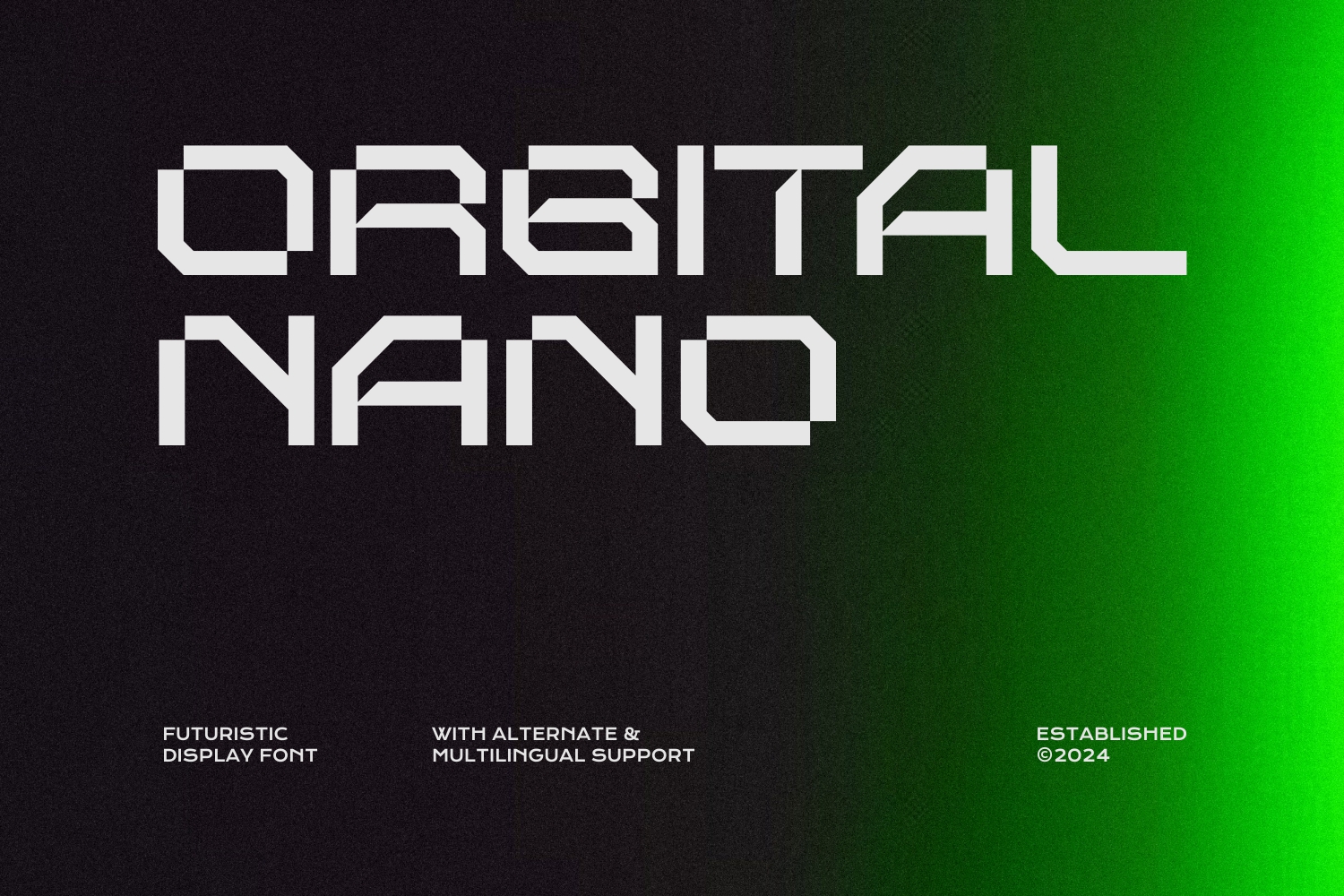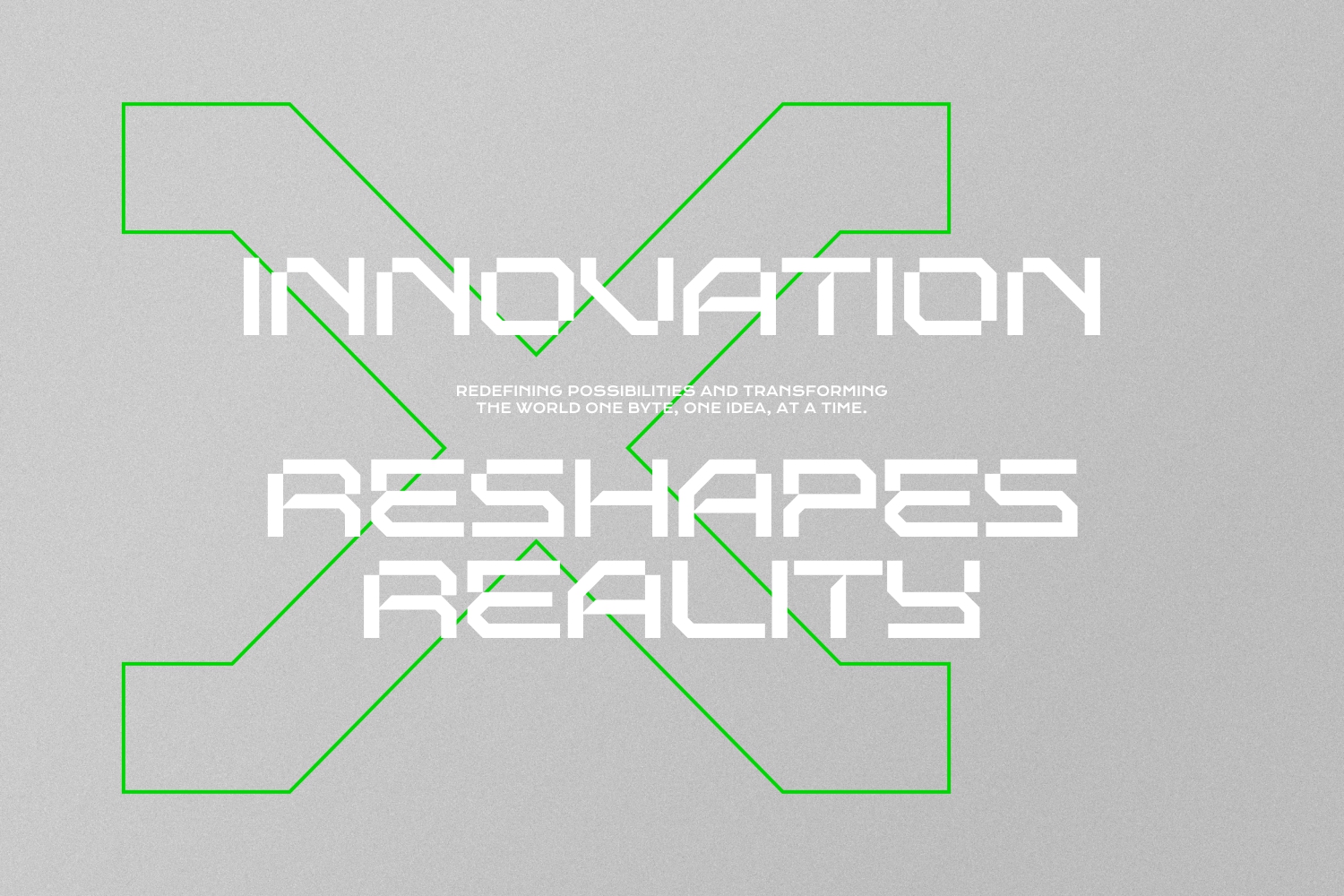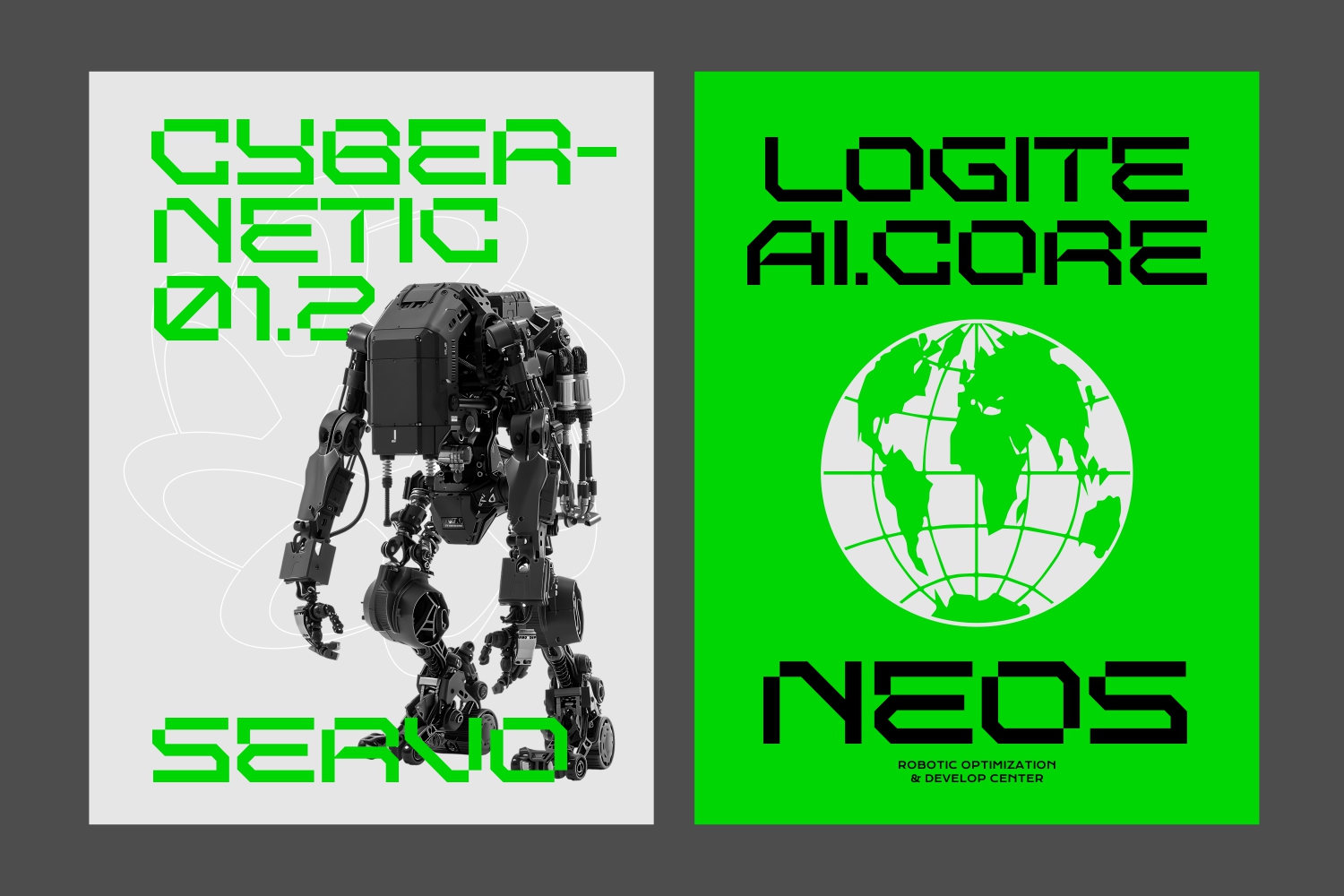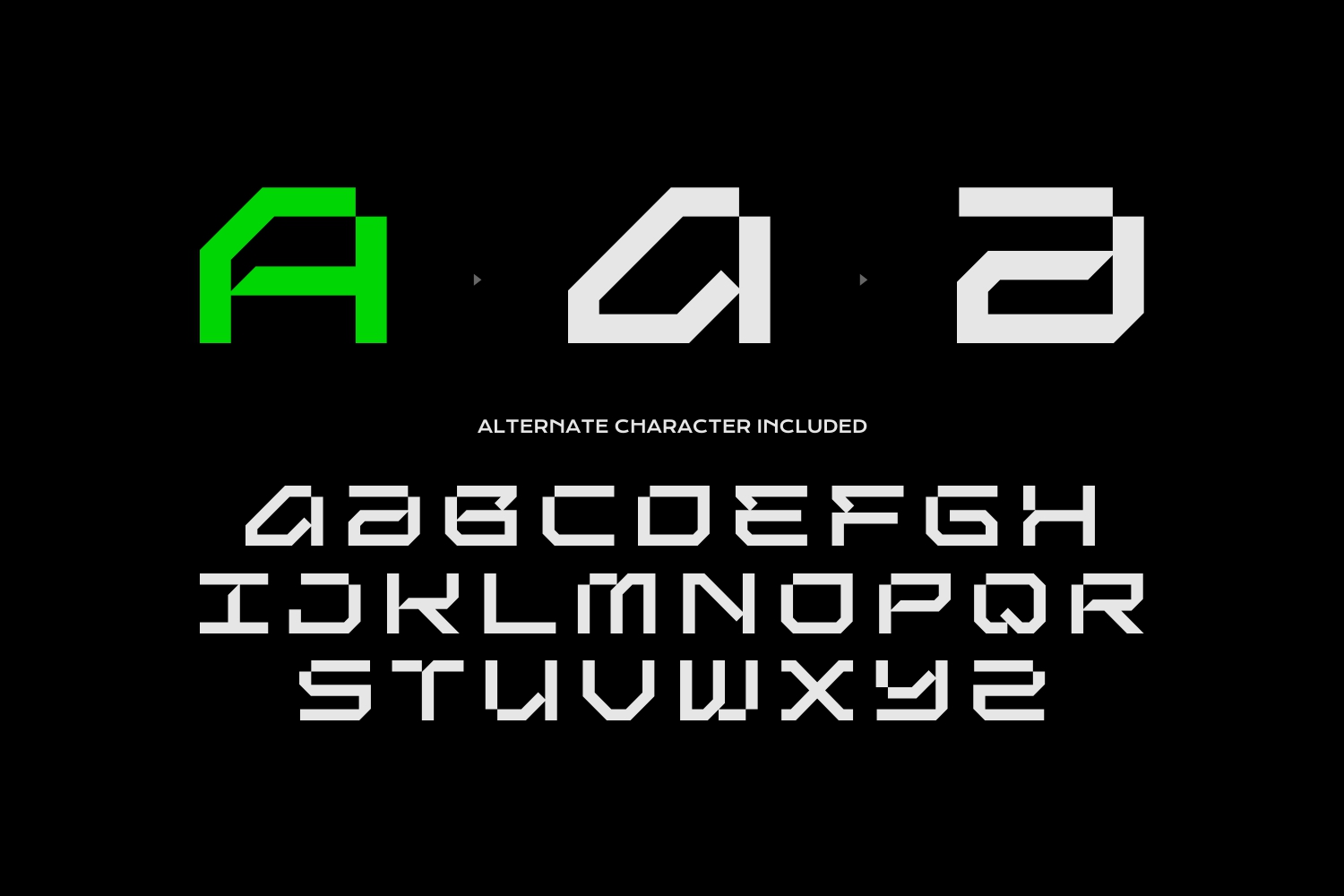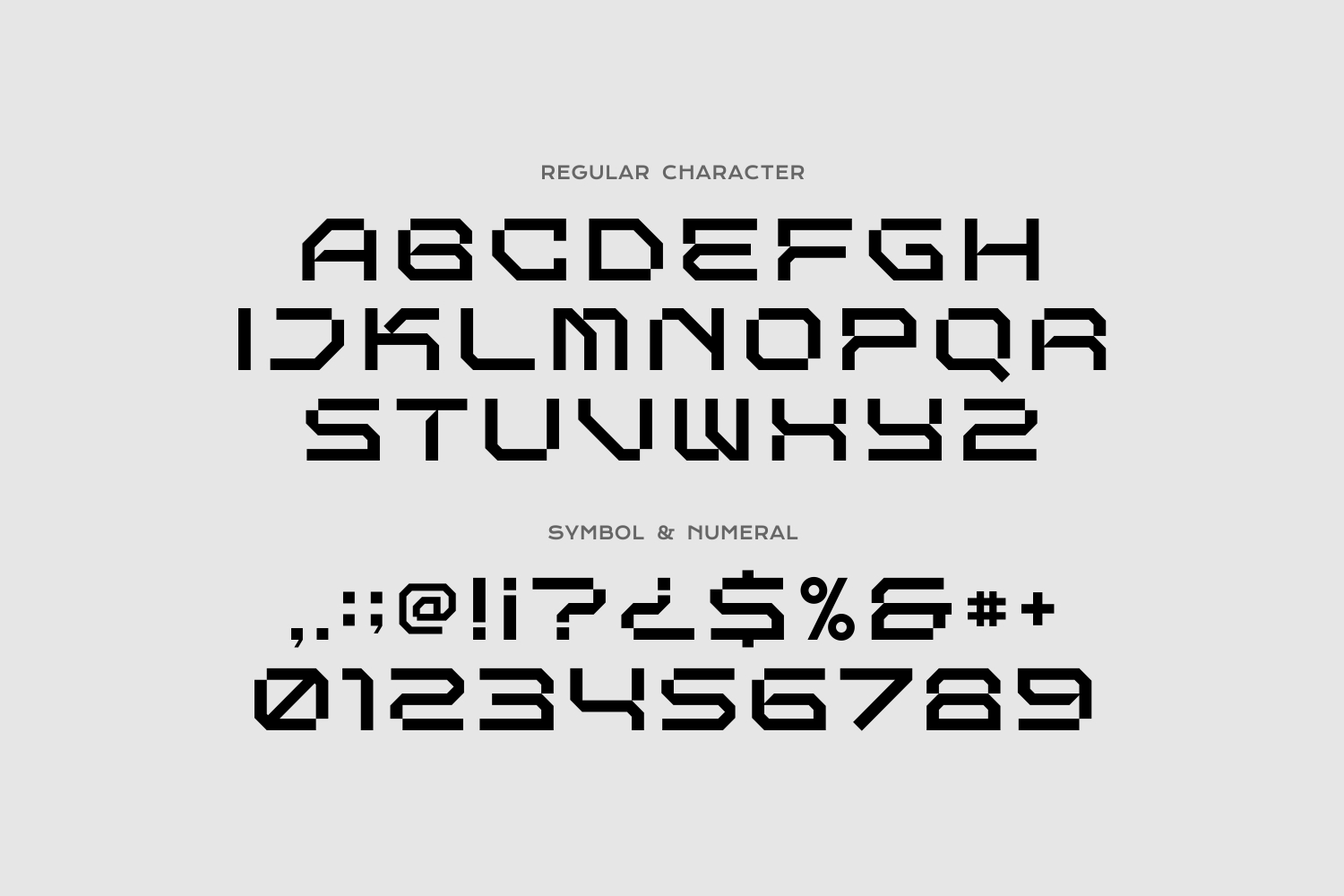
Orbital Nano is a futuristic display font crafted for cutting-edge designs and high-tech environments. With its sharp geometric cuts and modular structure, this typeface brings a cybernetic and robotic aesthetic to your visuals. Ideal for branding, sci-fi posters, UI interfaces, and tech startup presentations, Orbital Nano delivers a sense of precision and innovation.
The font includes uppercase letters, numbers, symbols, and unique alternate characters to provide versatility in both creative and commercial applications. Its distinct style shines in digital themes, space exploration concepts, and modern tech branding, making it a standout choice for any project that seeks a forward-thinking identity.
Orbital Nano